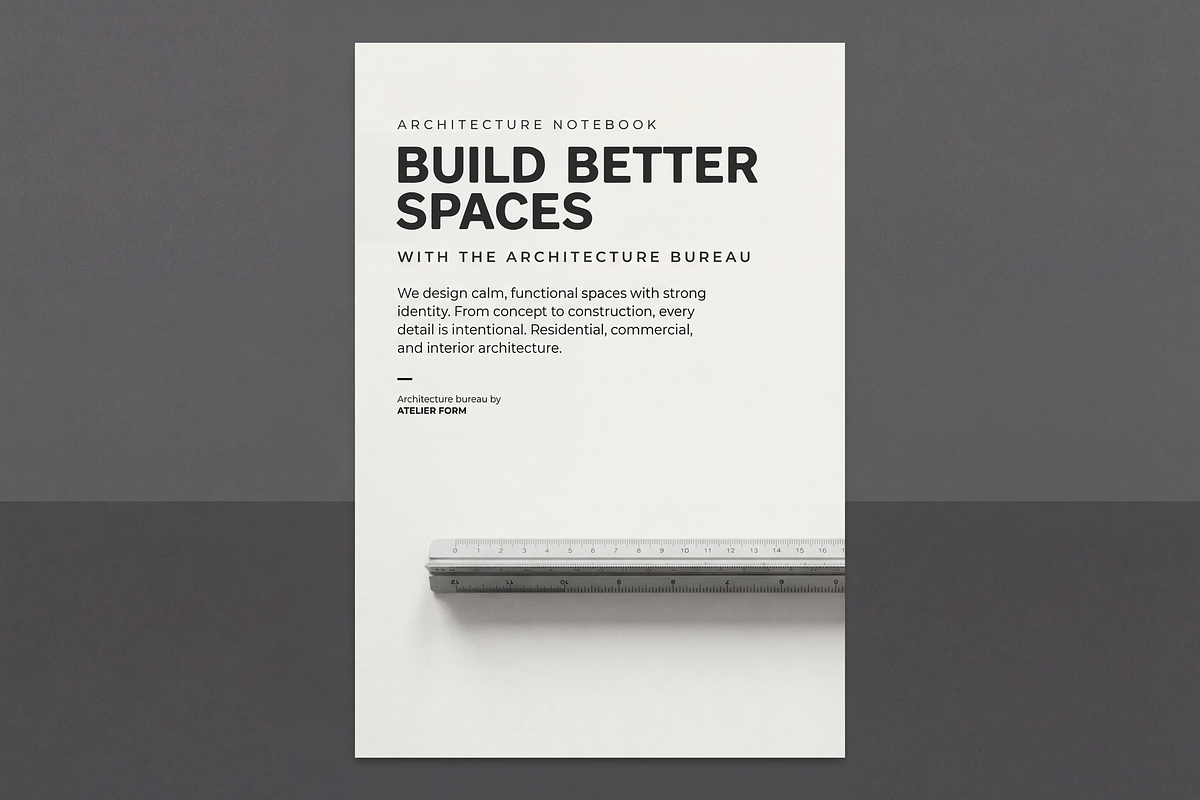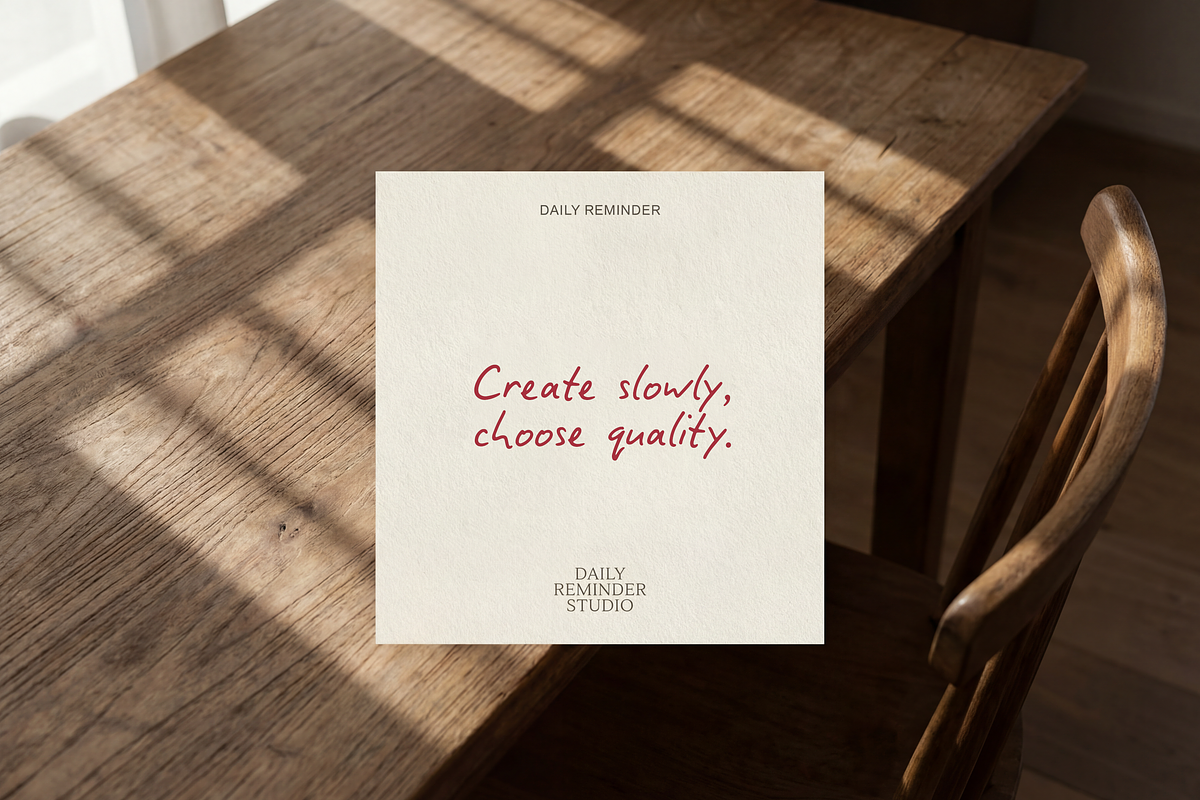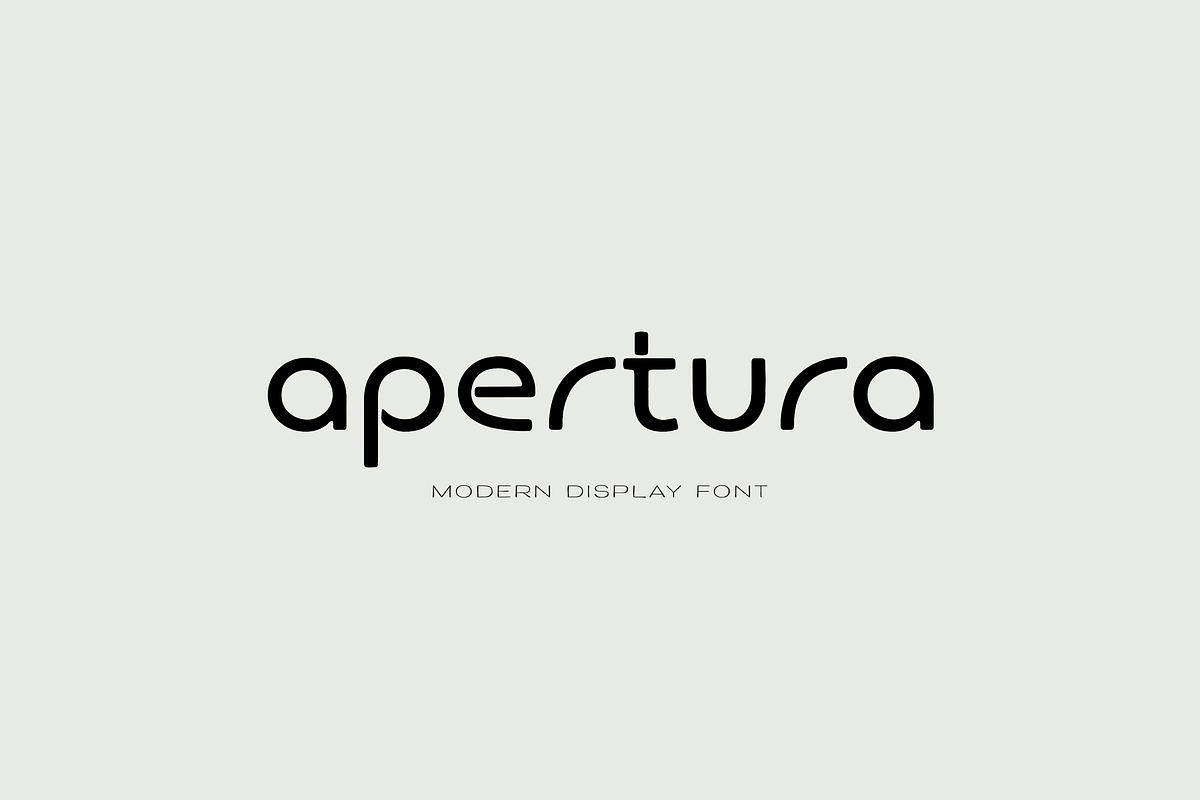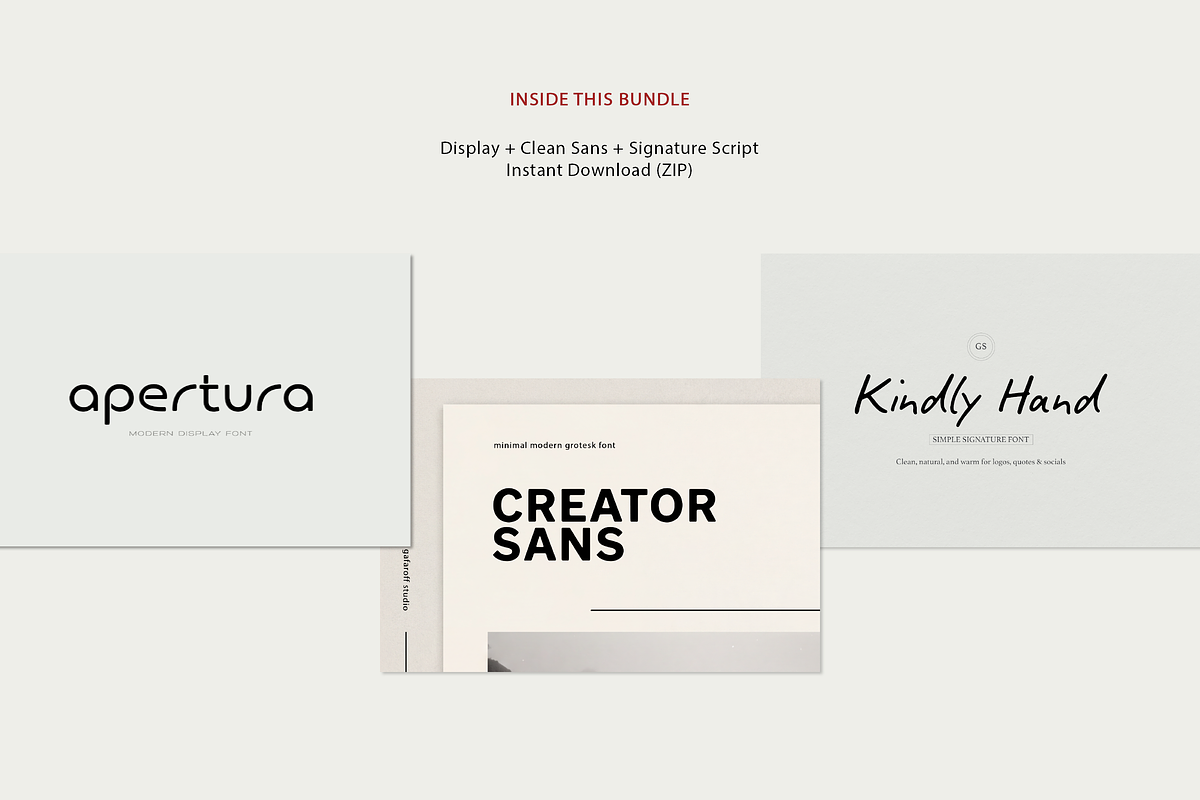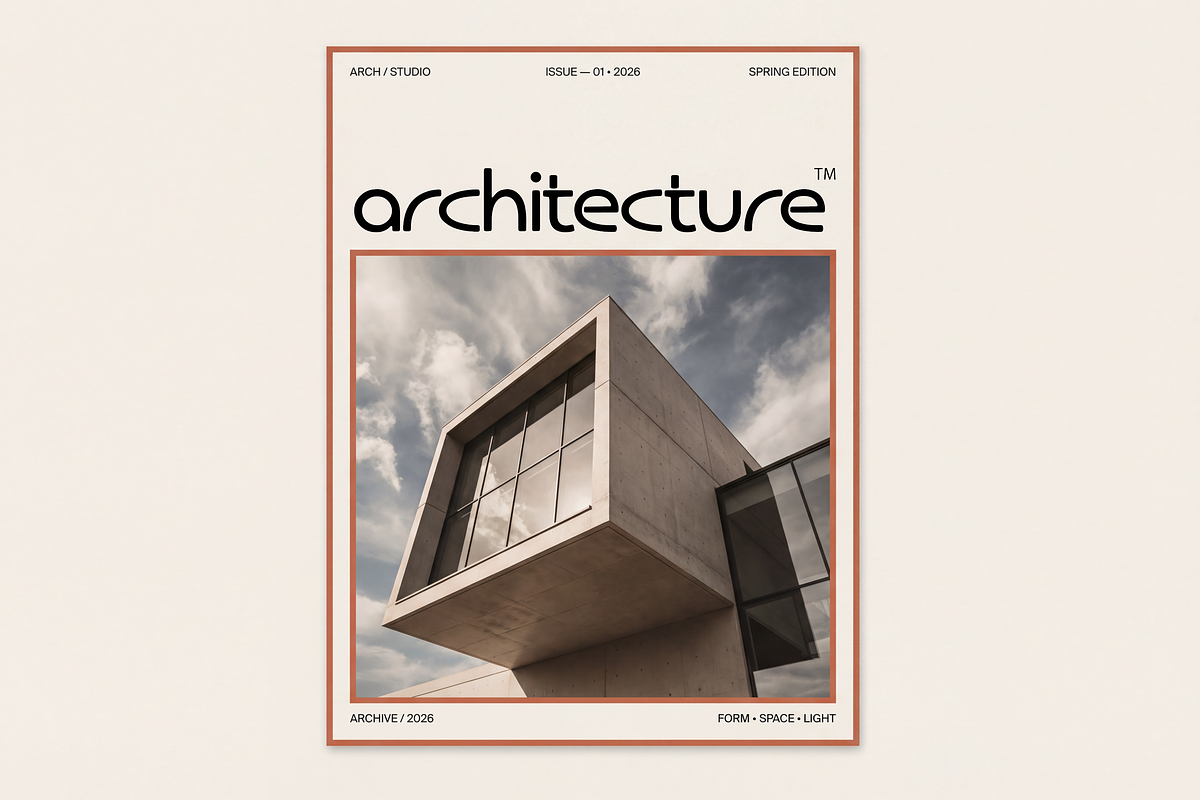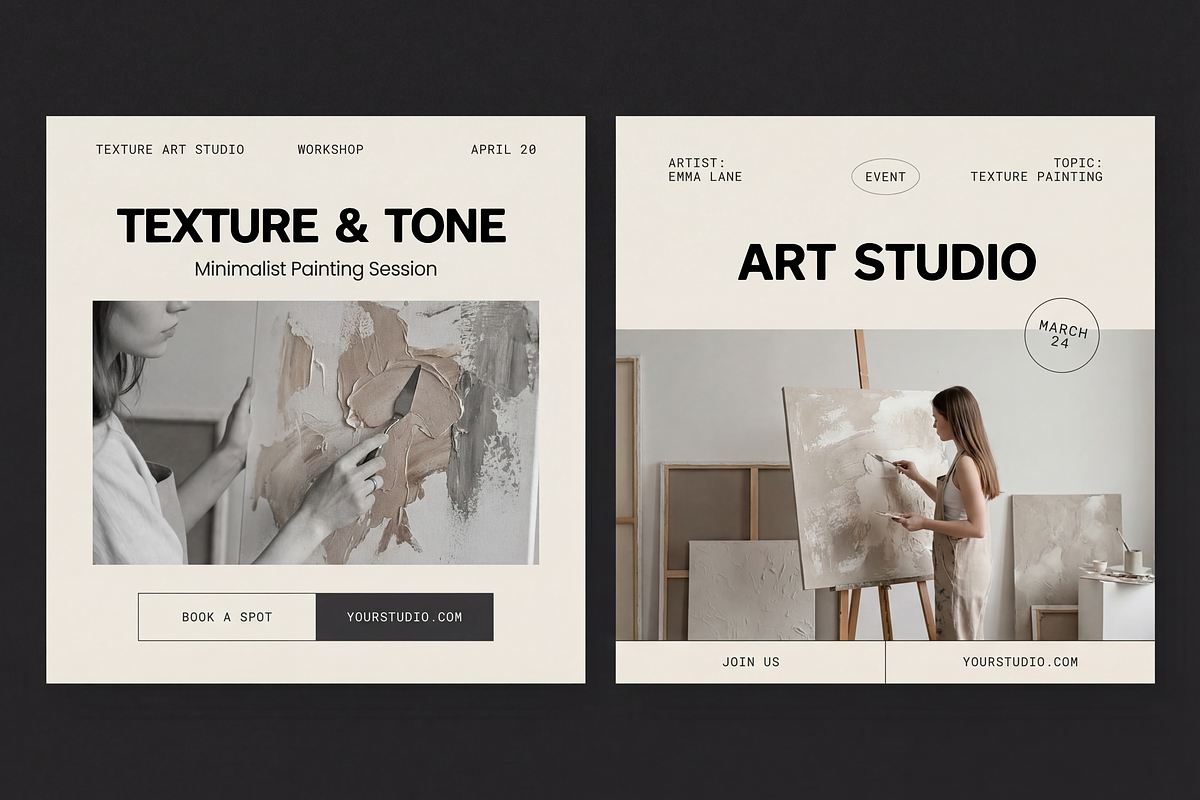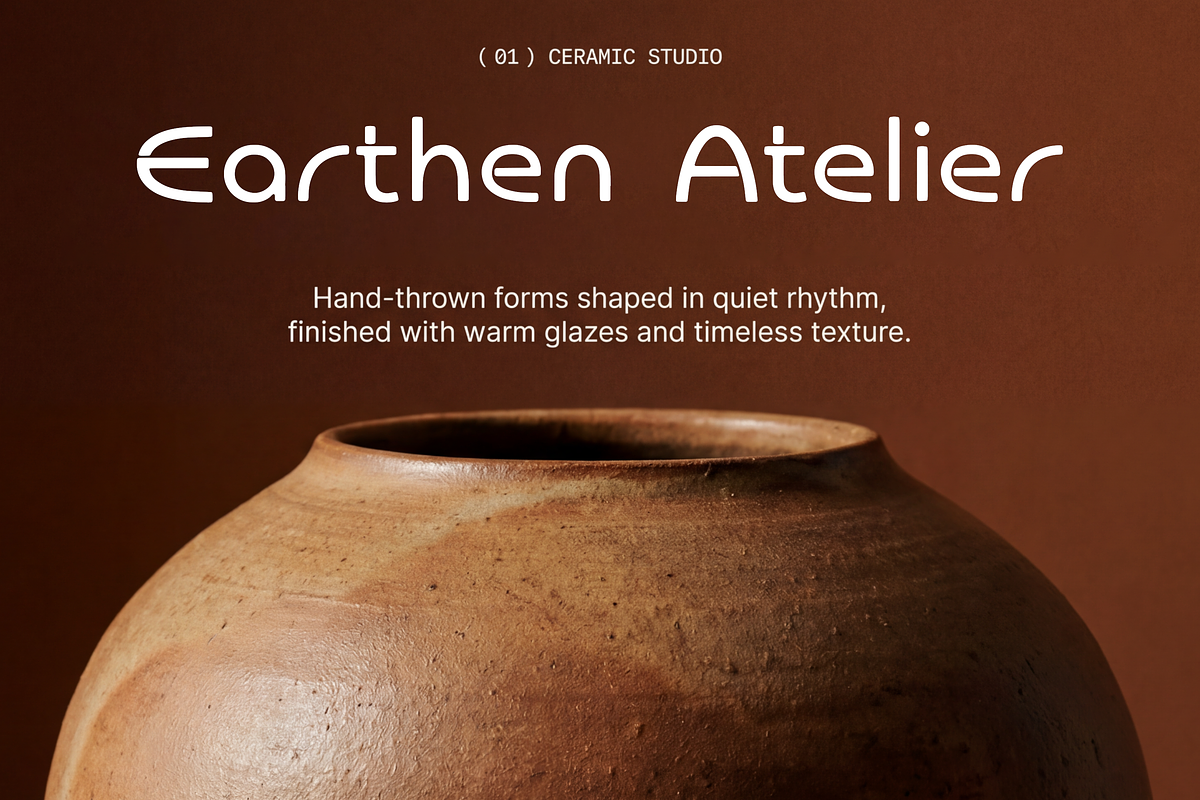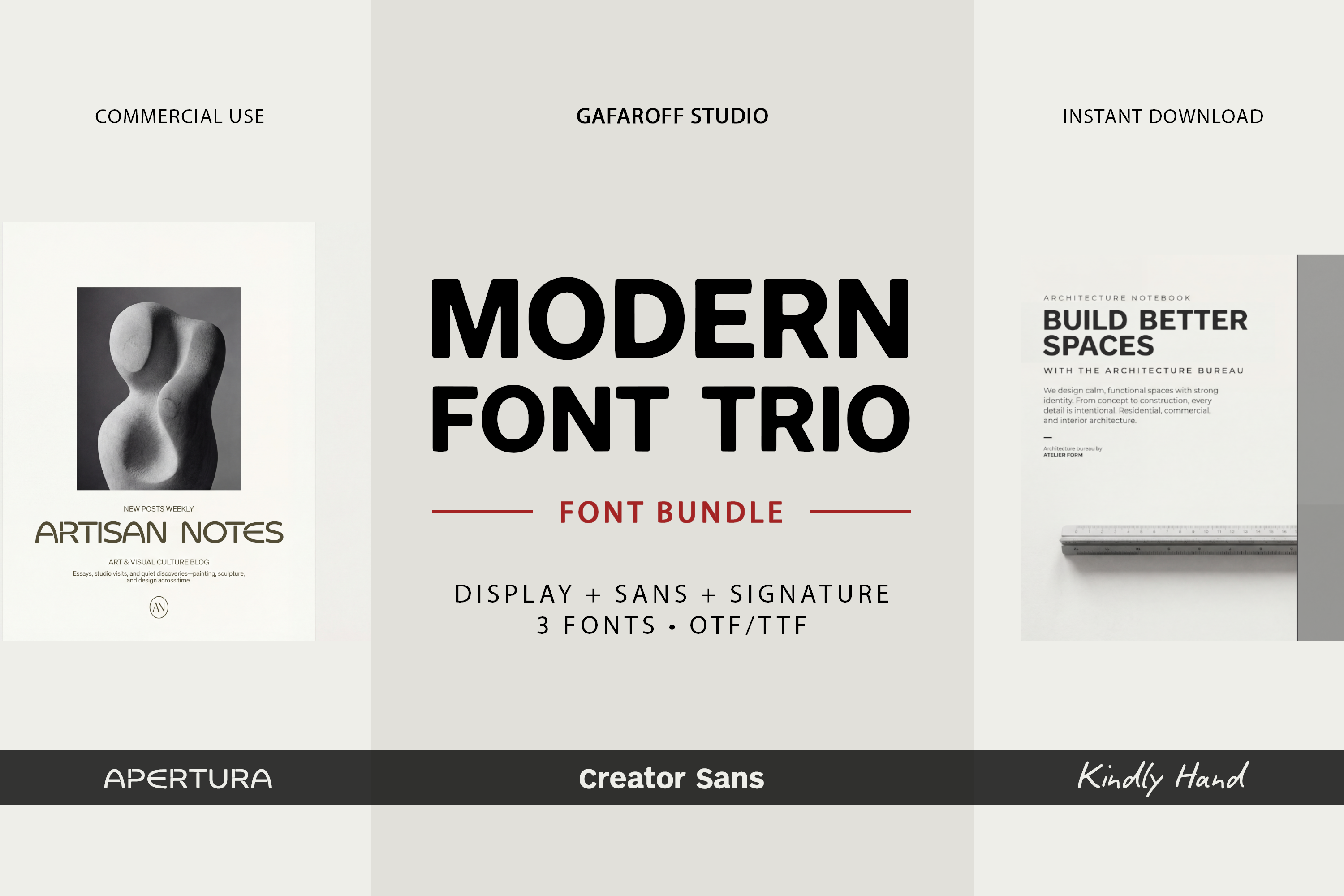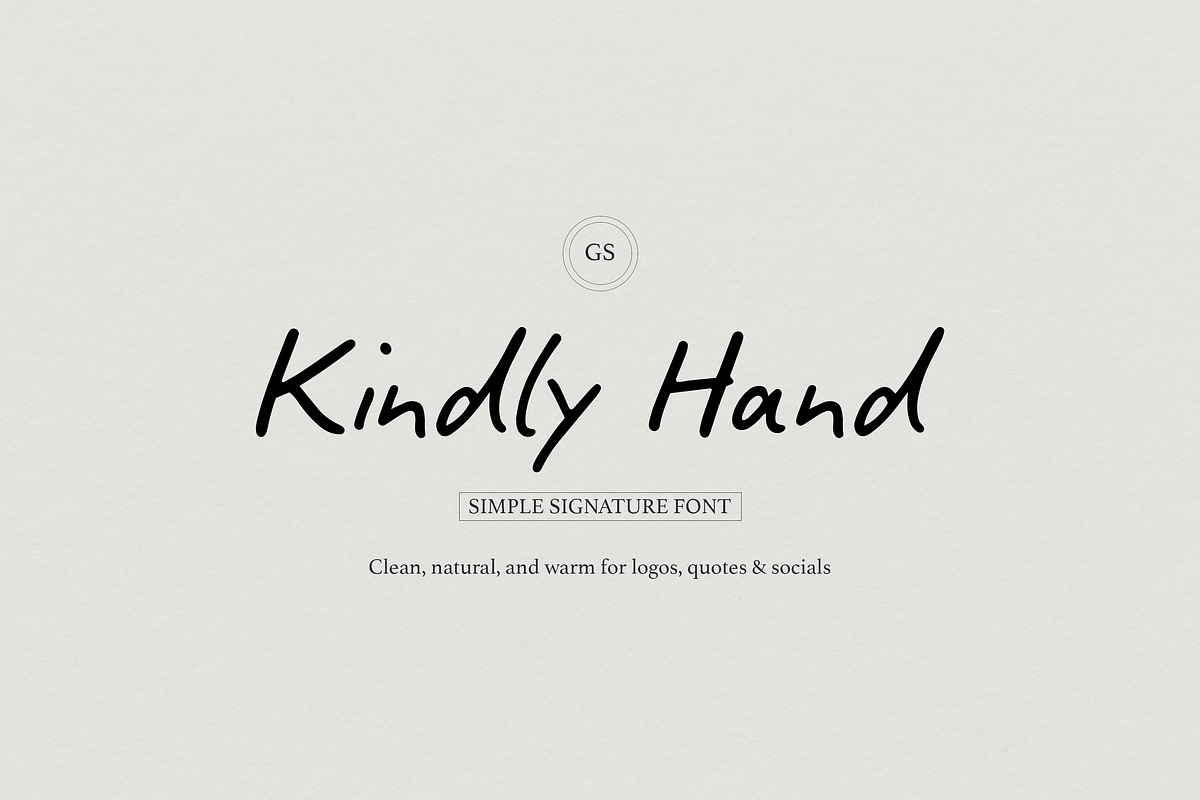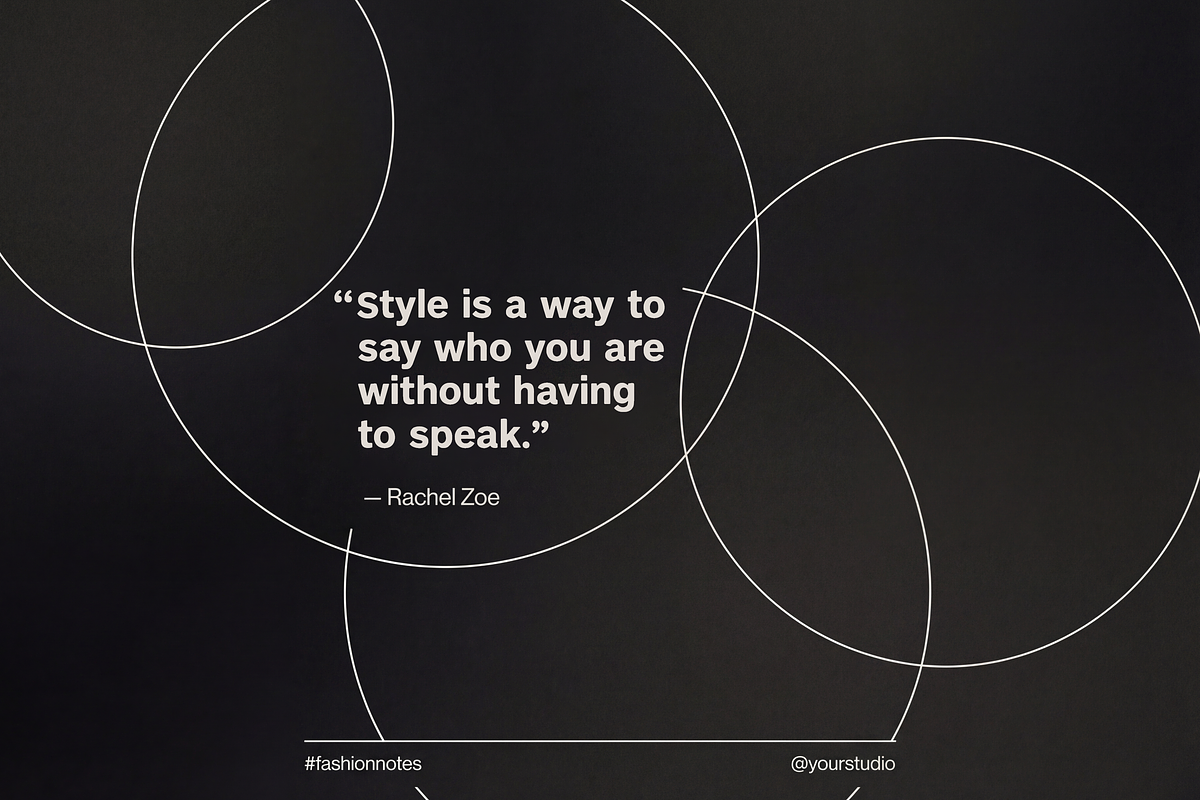
Modern Brand Kit Font Bundle
Modern Brand Kit Font Bundle.
Includes 3 fonts:
Apertura (display);
Creator Sans (sans);
Kindly Hand (signature).
Great for logos, brand identity, packaging, labels, social media posts, website mockups, business cards, presentations, and product branding